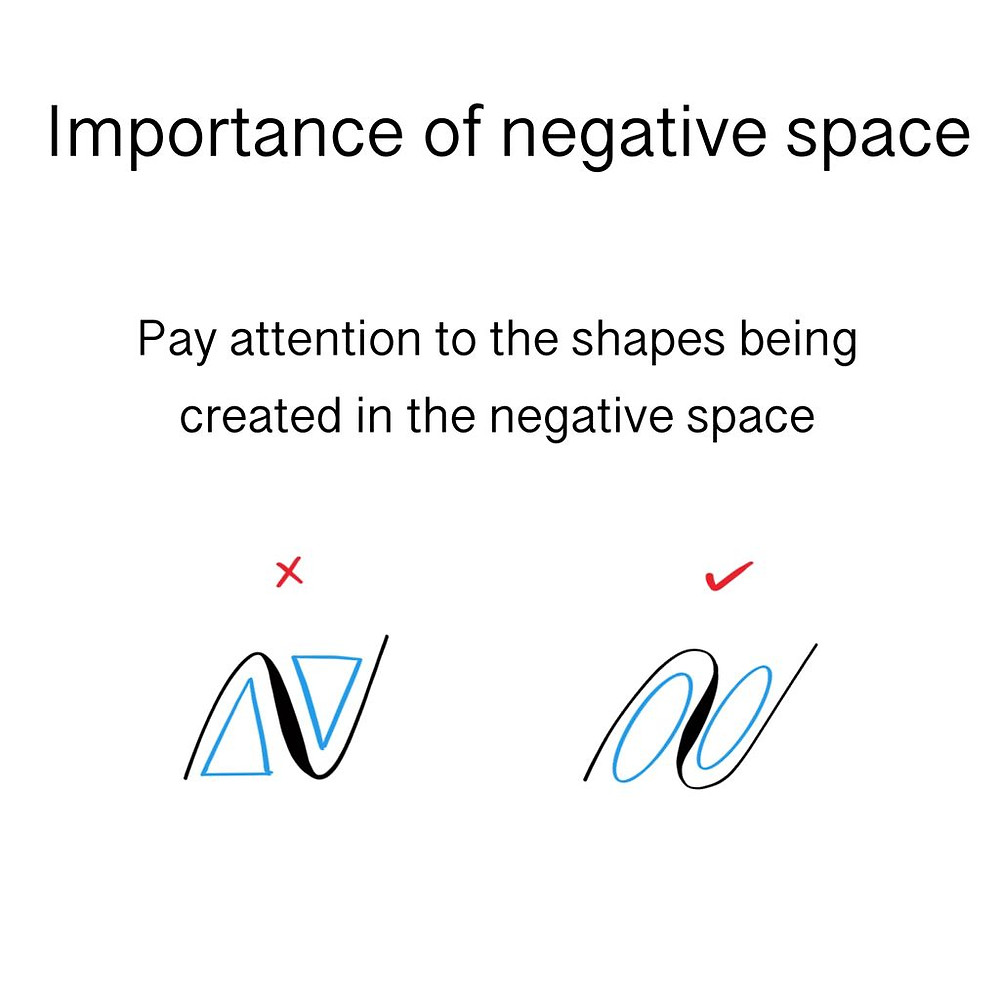
How To Get Better At Your Script W/ Nina Tran
Earlier this week, I had a lovely chat with the very amazing Calligrapher and Instructor Nina Tran on our show Let’s Get Real. We spoke all about learning and improving our script and Nina covered some really amazing points to help develop an eye to critique our work and pave a path for improvement. Our chat was so inspiring that I decided to write to you about it.
Consistency of angle: One of the first things to look for while critiquing your work is the consistency of your script’s angle. You can do this by drawing lines that are running through your words and seeing if they’re all parallel to each other.
Negative Space: You not just want to focus on the structure and form of the letter but also the negative space it’s creating.
For eg: If you’re creating an under turn, overturn, and compound curve - the negative space it creates should entail an oval and not a triangle.
Compare similar letters: If you’re writing a page full of words, then you want to compare a particular letter with other letters that come from the same group
For Example, a, o, e, and c are part of the same group and hence there must be similarities in the oval created in each of them.
And here’s a little something you want to remember...
“Learning is a backward process, you don’t know what you don’t know” -Nina Tran
You have to dive in and be okay with not knowing. Sometimes you have to keep going and if you hit a wall, you realize that you can’t surpass it because there’s something else you need to learn in order to get through that obstacle.
A simple example of that in terms of copperplate calligraphy could be, say for instance you started learning lowercase a and then you just wouldn't get it right, now you get frustrated and start digging into it, that’s when you come to know that an a is made up of an entrance stroke, oval and under turn and you never learned that.
So now you go back and learn the basic strokes before hopping on to lowercase!
Of course, this is a simple example but I hope you get what I’m saying?
One last thing, we’re all on our journey of learning and growing, if we compare ourselves to others it would in turn be detrimental to our own growth as an artist.
Create with an open heart and be willing to learn on the way!